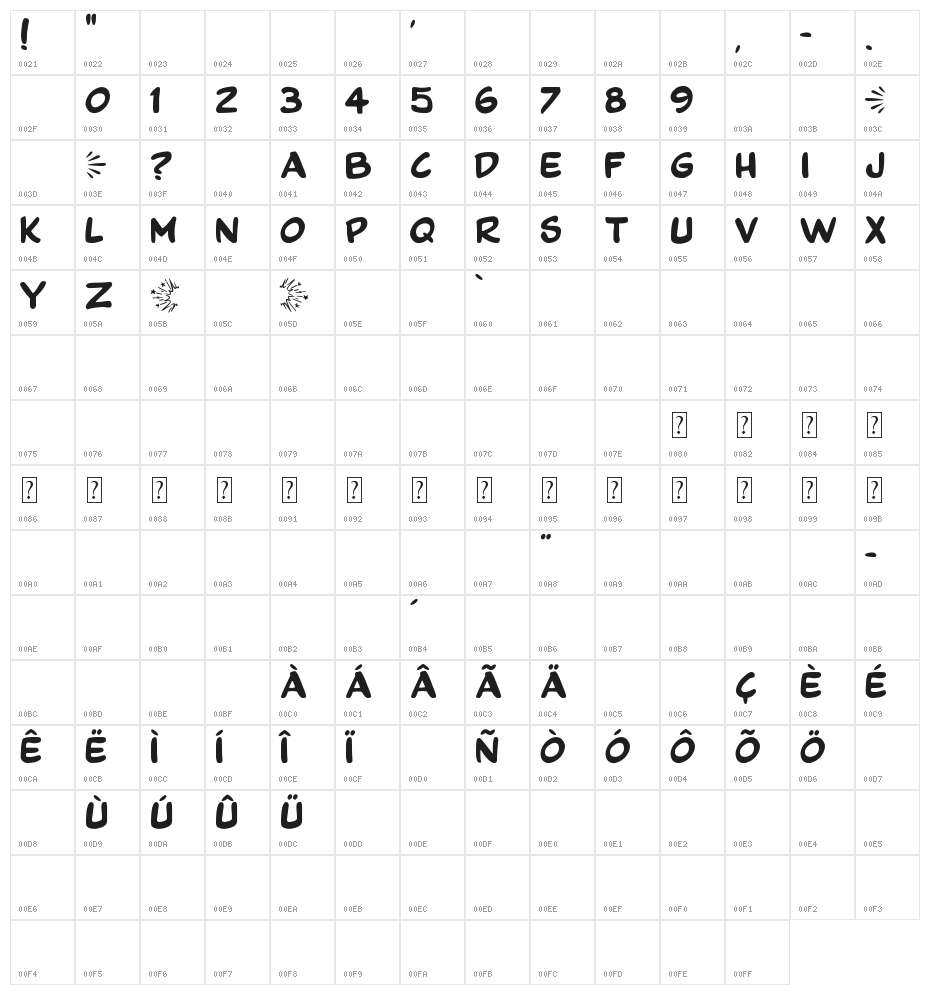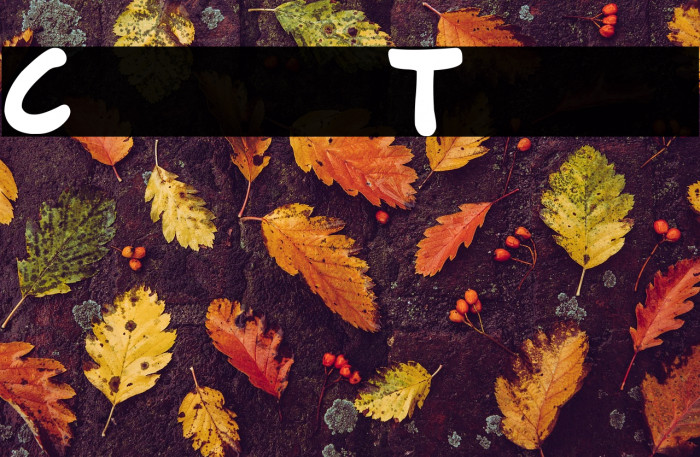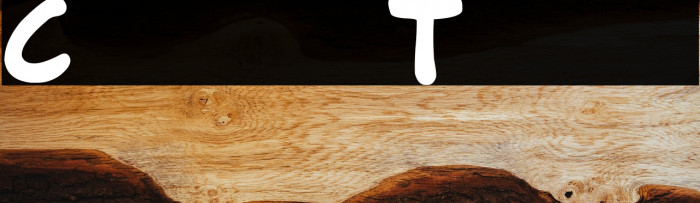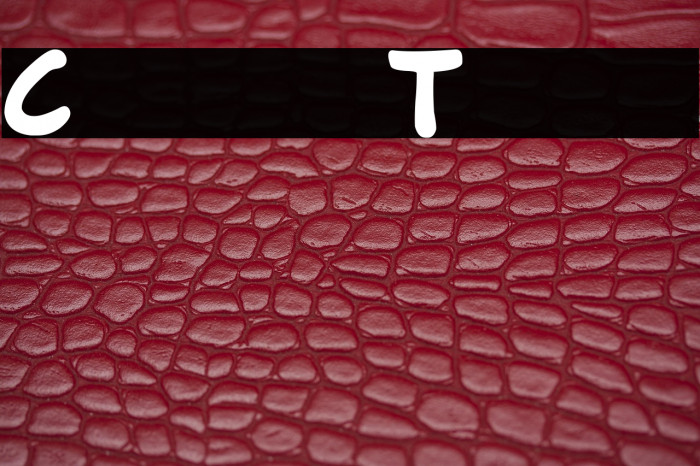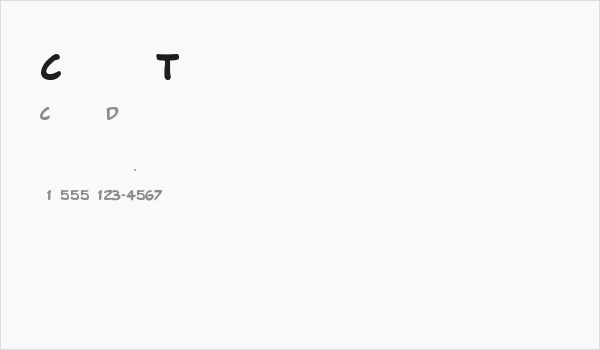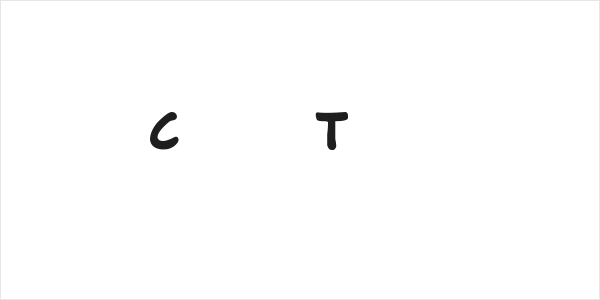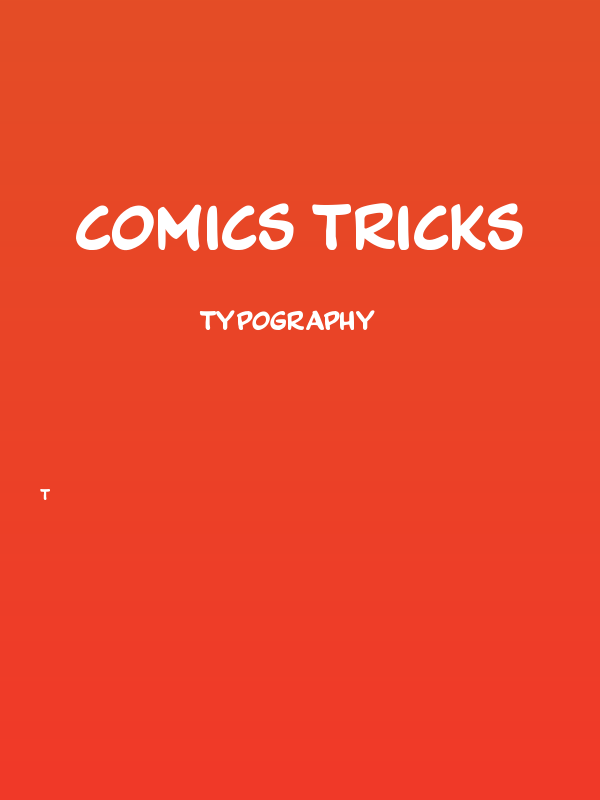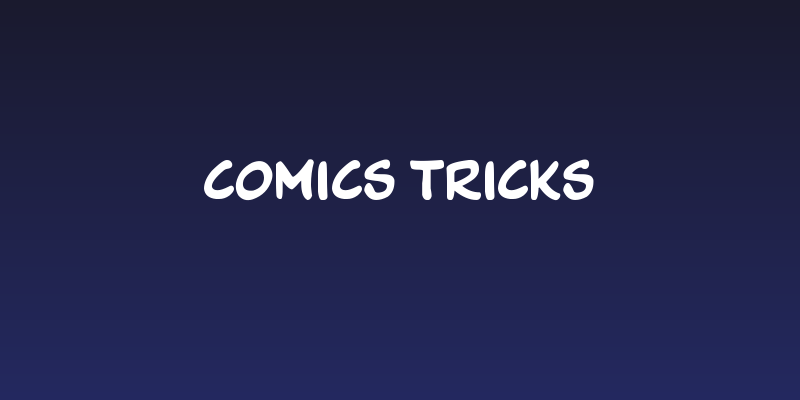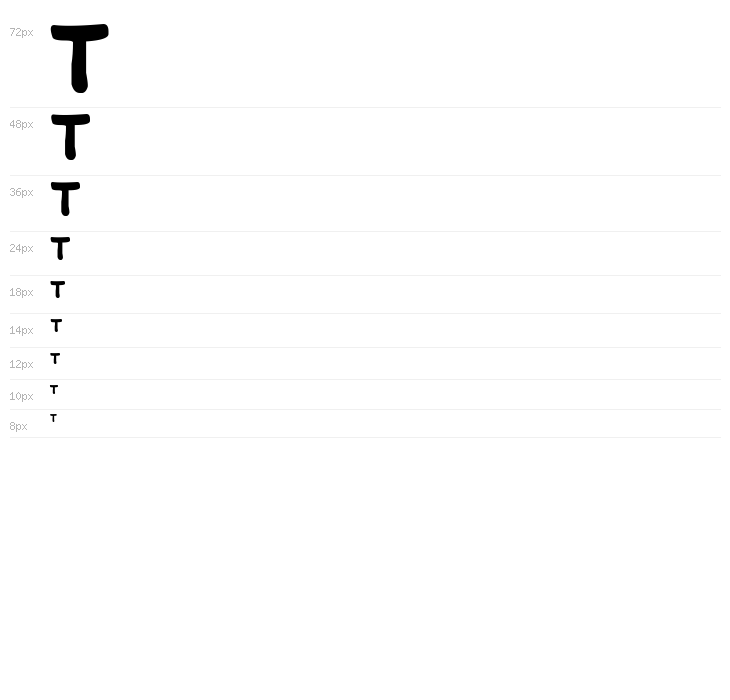
Comics Tricks Font
Comics Tricks Description
This playful and bold font features rounded, thick strokes that give it a friendly and approachable appearance. The characters are slightly irregular, adding a hand-drawn feel that enhances its comic-like style. The uppercase letters are well-proportioned, while the numerals maintain a consistent height, ensuring readability. The special characters are creatively designed, maintaining the font's whimsical nature. Overall, this font exudes a sense of fun and creativity, making it ideal for projects that require a lighthearted and engaging touch.
| Overall Style | Playful, Comic |
| Proposed Projects | Ideal for comic books, children's books, playful branding, and casual posters. |